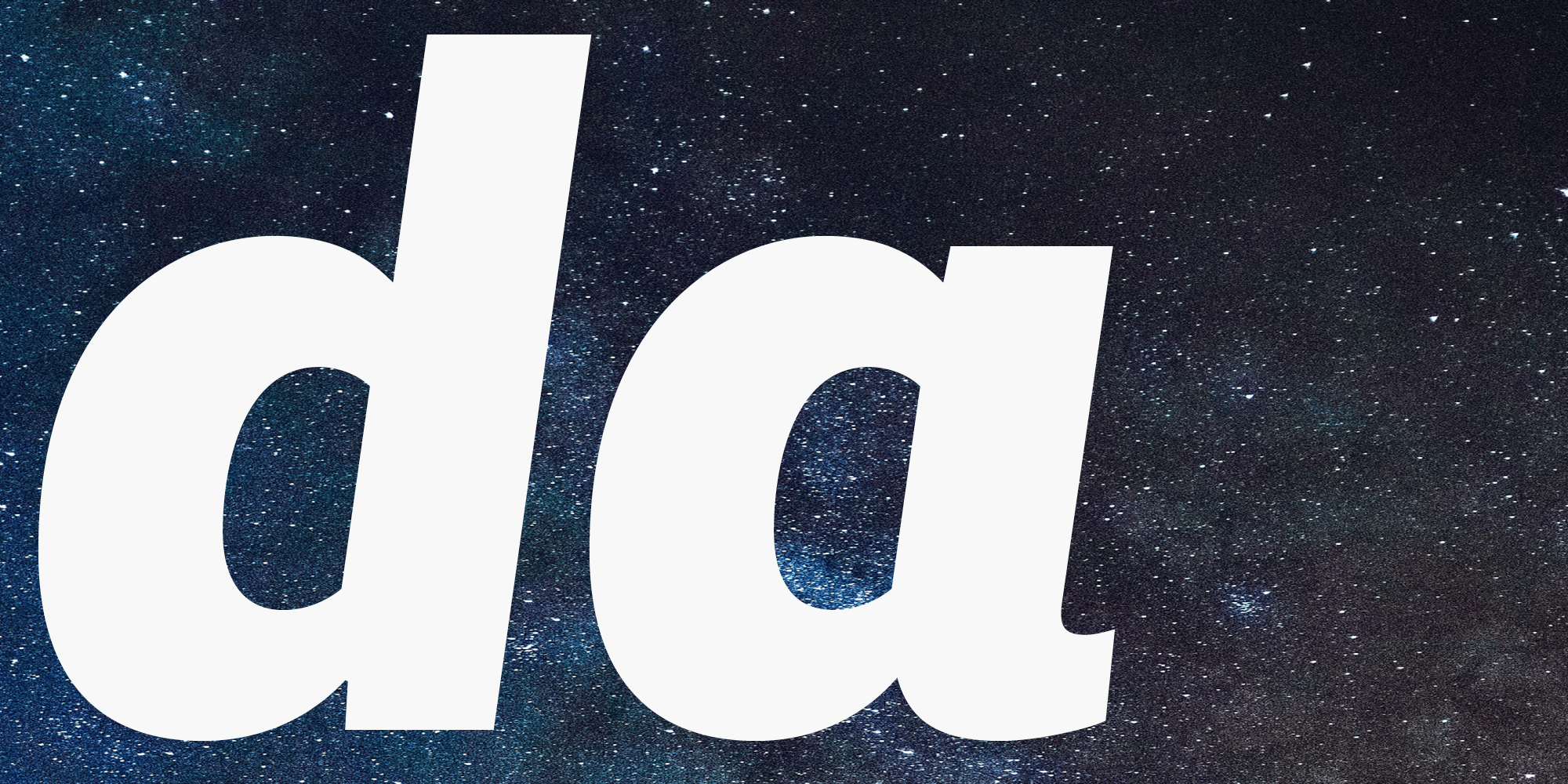
Adelle Sans Font is perfect for editorial publications, magazine layouts, contemporary branding projects, professional websites, corporate communications, book publishing, cultural institution materials, modern marketing campaigns, academic publications, and sophisticated digital interfaces. This versatile typeface excels in environments where readability, elegance, and contemporary sophistication are essential for effective communication.
What makes Adelle Sans Font exciting is its masterful combination of humanist warmth with contemporary clarity, creating a typeface that feels both approachable and authoritative. The font features carefully crafted letterforms with subtle character variations that enhance readability while maintaining distinctive personality. This perfect balance between functionality and character makes it ideal for brands seeking to communicate professionalism and accessibility across diverse media platforms.
Adelle Sans Font family includes Thin, Light, Regular, Medium, Semibold, Bold, Black, and corresponding Italic variants. Each weight maintains the font's distinctive humanist character while offering comprehensive flexibility for creating sophisticated typographic hierarchies and cohesive brand experiences that work seamlessly across print and digital applications.
The Adelle Sans Font Free Download offers designers access to a premium sans-serif typeface that represents the evolution of contemporary typography design. This font's refined aesthetic and technical excellence make it particularly valuable for publishing houses, media companies, and organizations requiring superior text performance and visual sophistication.
Typography professionals recognize the font's exceptional technical implementation, including refined optical adjustments, comprehensive OpenType features, and superior rendering capabilities across various media. The character set includes extensive punctuation, special characters, and multilingual support essential for international publishing applications.
When implementing Adelle Sans Font in design projects, the results consistently demonstrate both aesthetic appeal and functional excellence. The font's balanced personality makes it particularly effective for brands in media, education, professional services, and cultural sectors where credibility and accessibility are paramount to successful communication.
For web typography, Adelle Sans Font renders exceptionally well across all devices and browsers, maintaining its character integrity and excellent readability from mobile screens to desktop displays. Its optimized hinting ensures consistent performance across different operating systems and screen technologies.
Creative agencies frequently recommend Adelle Sans Font for clients seeking a reliable, contemporary typeface that communicates sophistication and professionalism while remaining highly functional across diverse editorial and digital media applications worldwide.